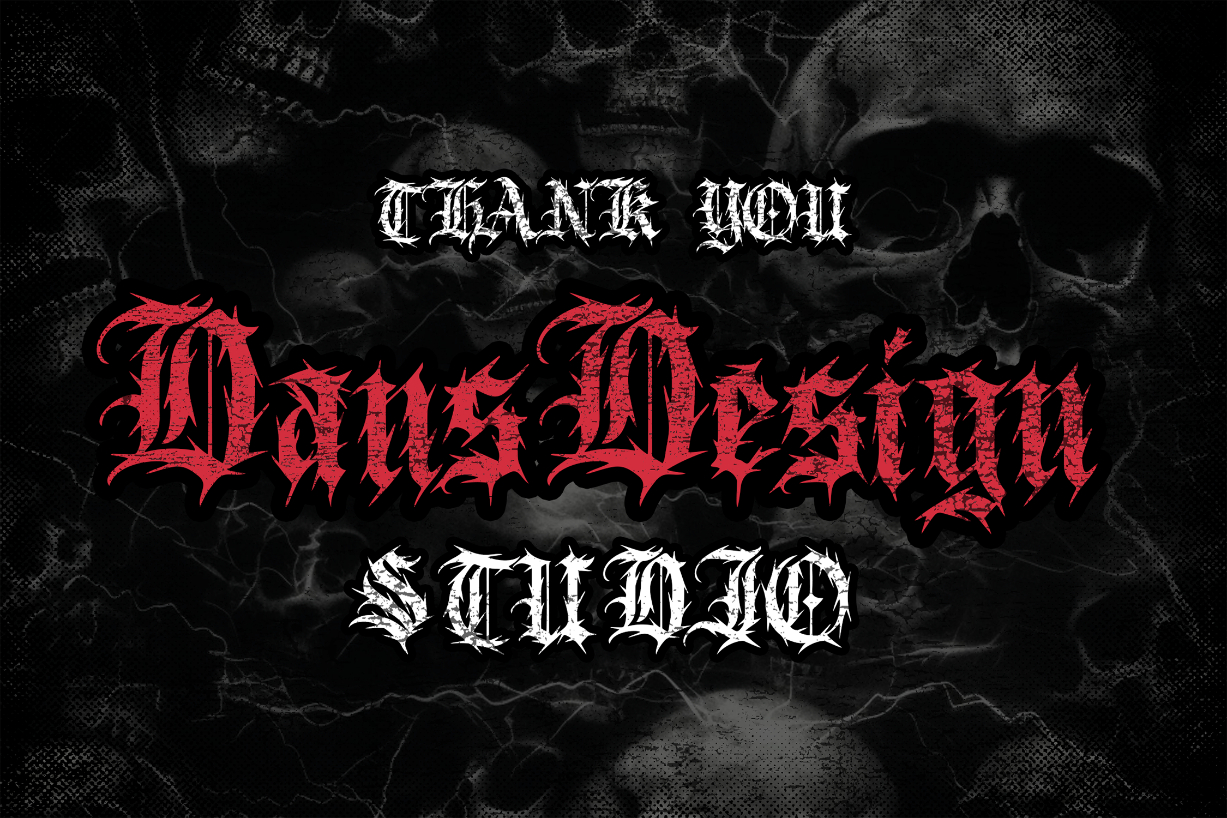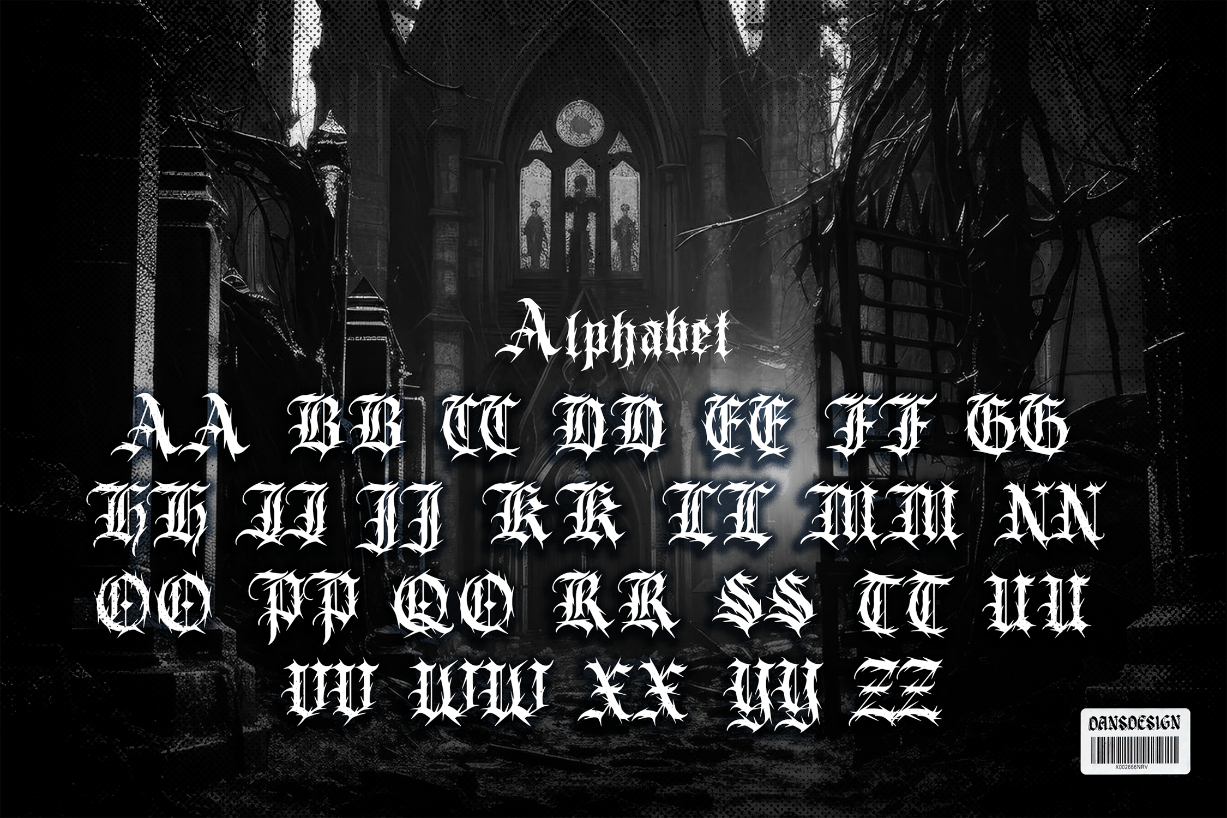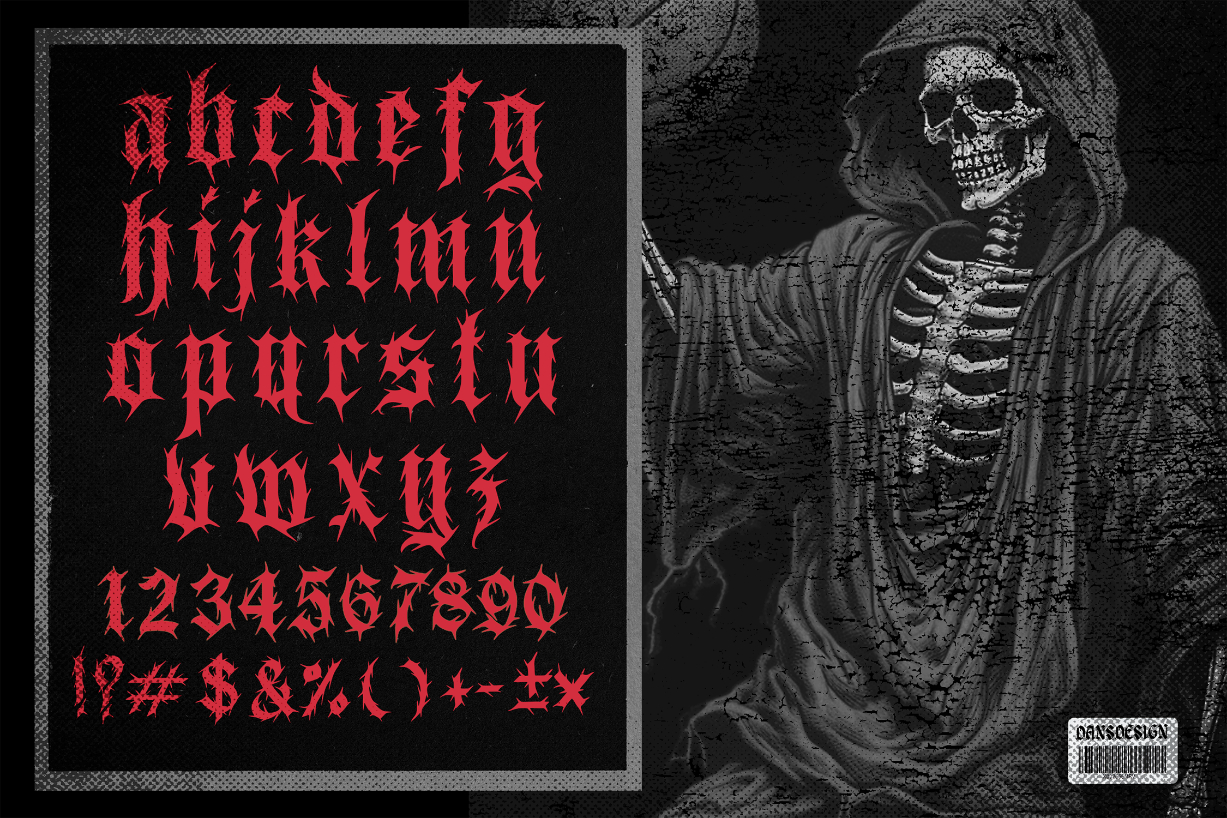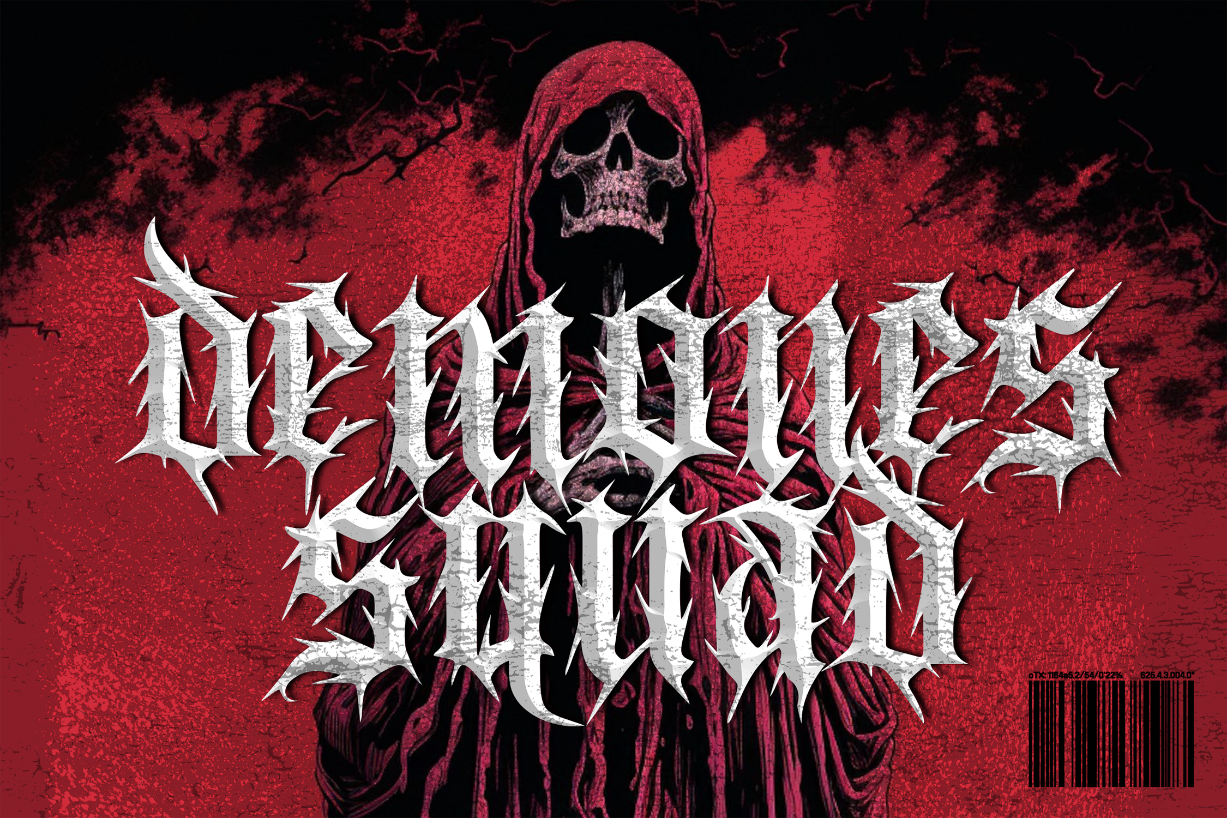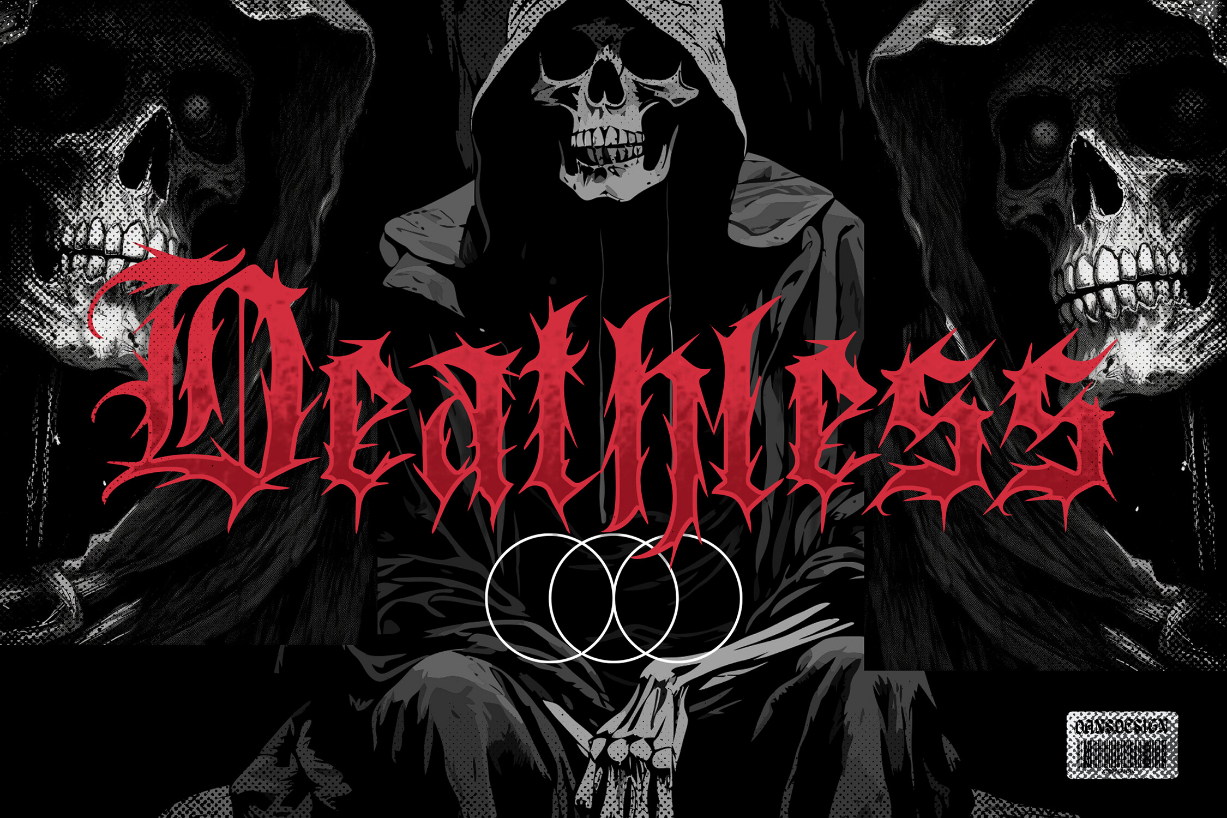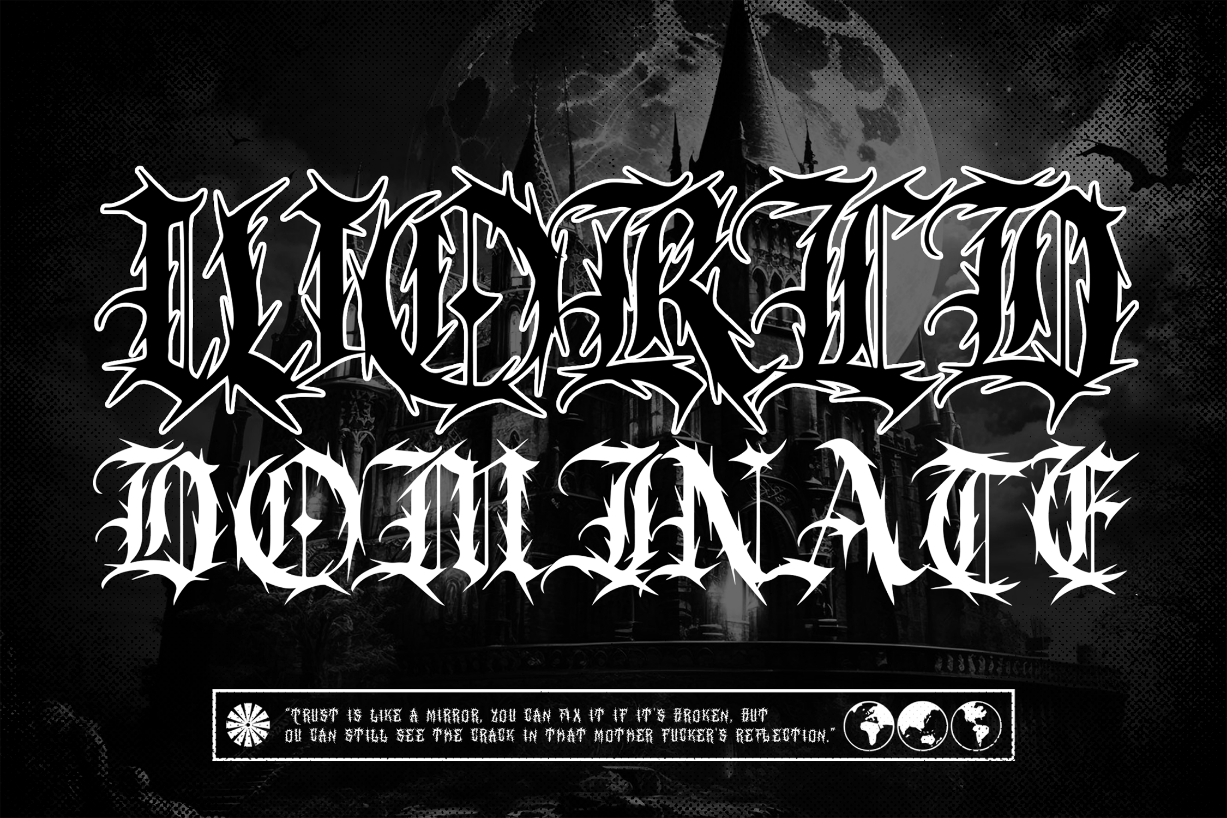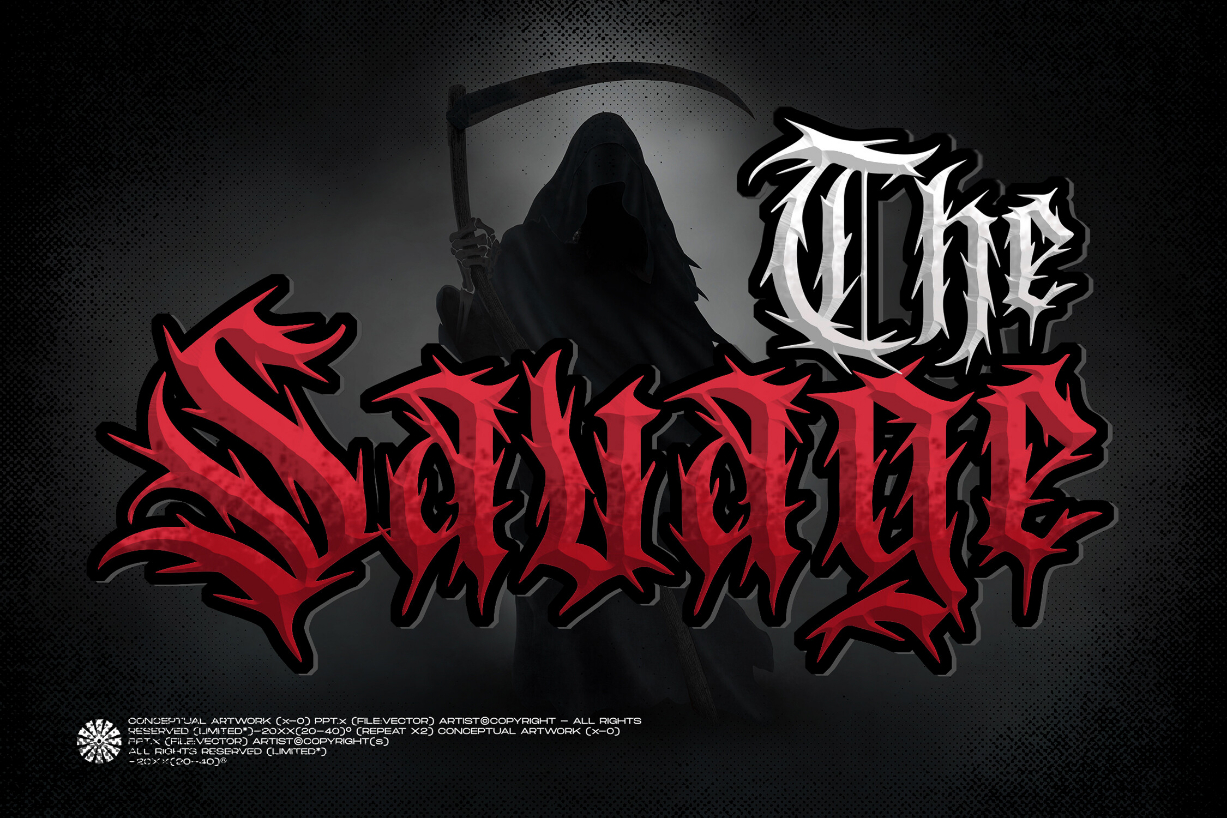
Bones Font
About Bones Font
Bones is a distinct, highly detailed, and chic Blackletter font. It would make a great choice for exquisite retro-urban designs, tattoo business branding, logos, vintage designs, movie, poster, apparel, illustration, and more.